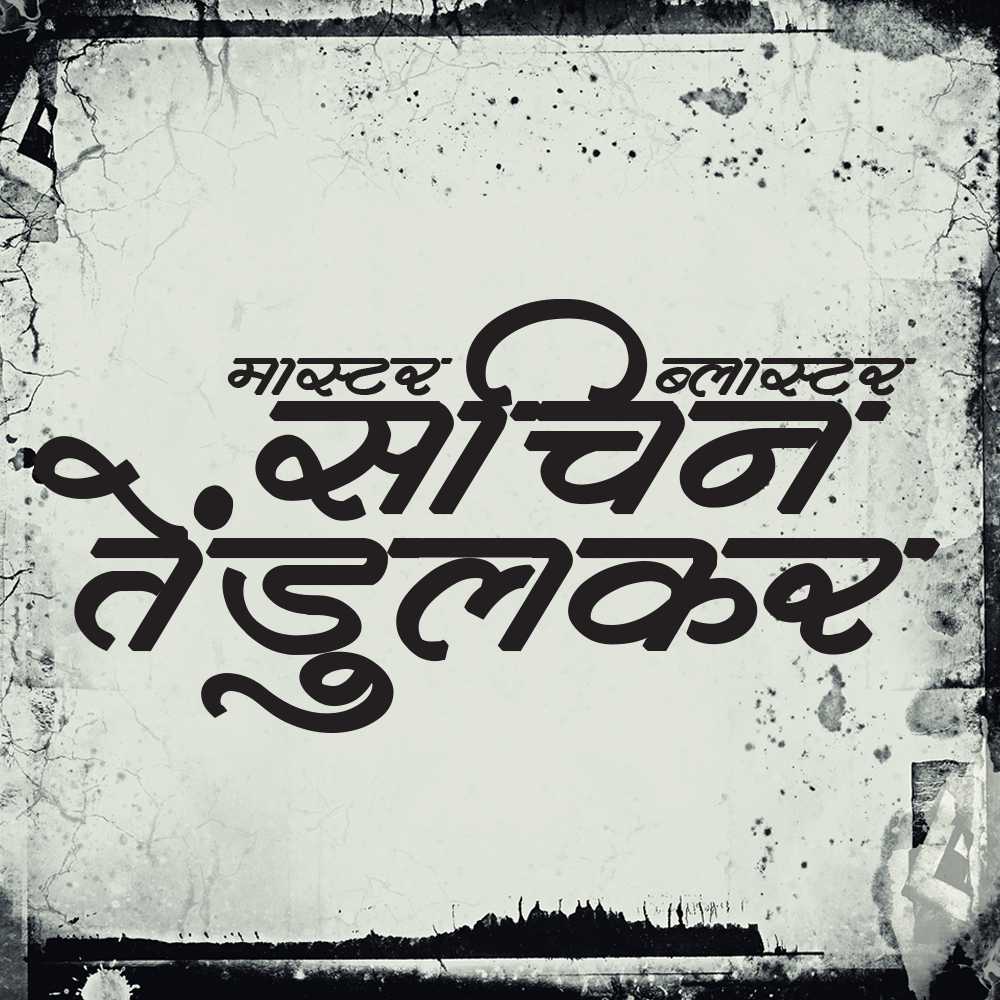
AMS Sundar
Experience the timeless beauty of AMS Sundar, a calligraphy font that exudes elegance and grace. This font is perfect for designers seeking stylish Hindi fonts, calligraphy fonts that make a statement, or fonts that offer a unique font style download. With its flowing strokes and intricate details, AMS Sundar adds a touch of sophistication to your designs.
About AMS Sundar Font
Experience the timeless beauty of AMS Sundar, a calligraphy font that exudes elegance and grace. This font is perfect for designers seeking stylish Hindi fonts, calligraphy fonts that make a statement, or fonts that offer a unique font style download. With its flowing strokes and intricate details, AMS Sundar adds a touch of sophistication to your designs. This calligraphy font combines elegance with functionality, making it perfect for various design applications.
AMS Sundar is a professionally crafted calligraphy typeface that brings clarity and style to your projects. Designed with attention to detail, it supports hindi and marathi characters flawlessly.
Whether you're working on wedding-materials, headers-titles, logos, or other creative projects, AMS Sundar delivers consistent performance across both digital and print media. This carefully designed typeface ensures readability and visual appeal in all your design work.
AMS Sundar excels in various design scenarios. Here are the most suitable applications:
About AMS Sundar Typography Style
AMS Sundar is a professionally crafted calligraphy font that exemplifies modern Hindi typography design. This free font is perfect for designers seeking professional branding and logo design projects.
Available in 1 weight and supporting hindi, marathi scripts, AMS Sundar offers exceptional versatility for both digital and print media. Whether you're working on wedding-materials, headers-titles, logos, this carefully designed typeface ensures consistent quality and professional results across all your typography projects.